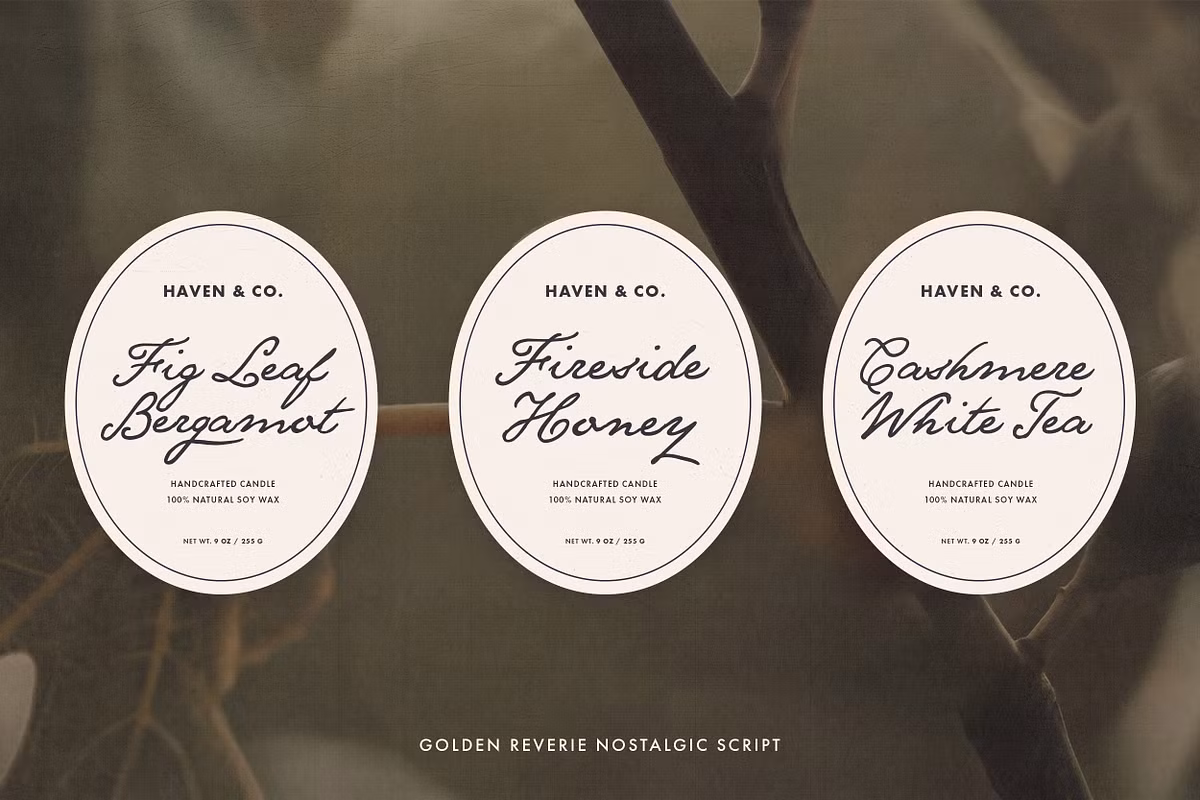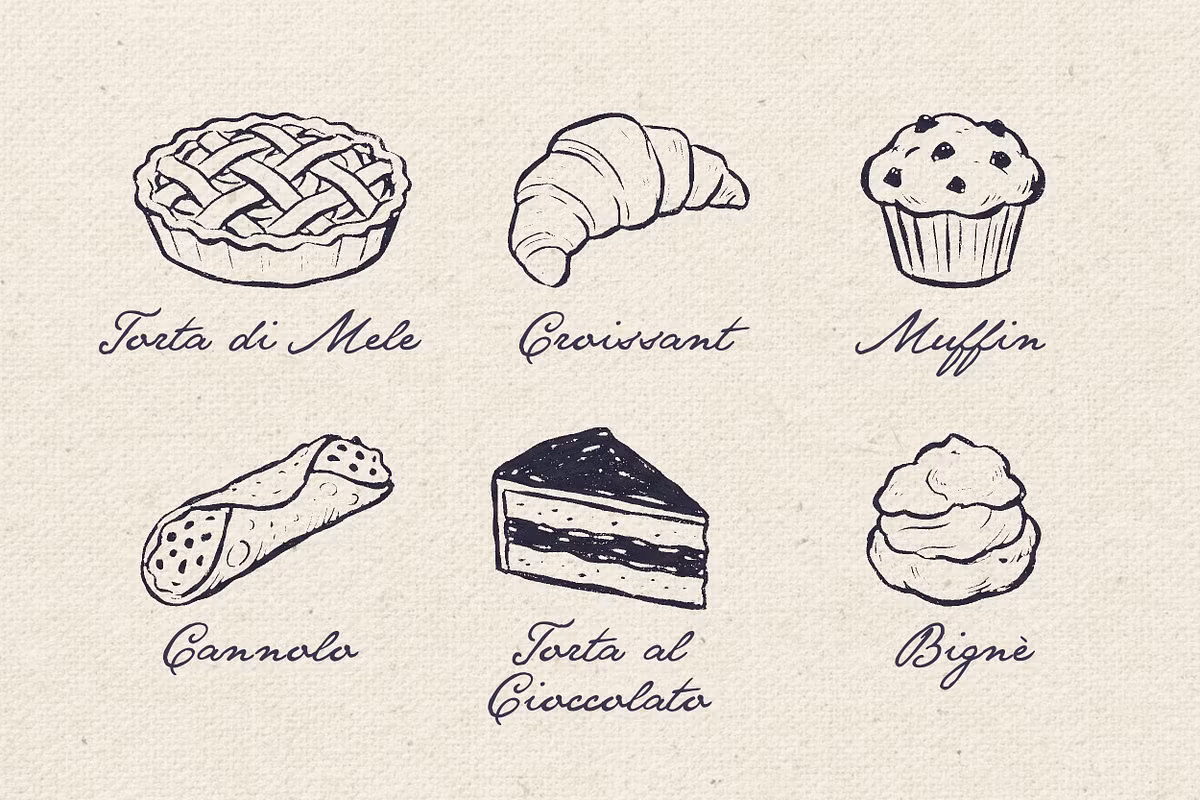
Golden Reverie: Handcrafted Nostalgic Script Font for Elegant Design
Golden Reverie is a made script font that takes ideas from the hand written letters and the old magazine design. Golden Reverie has strokes and clear shapes. Golden Reverie feels like a memory of the past. Golden Reverie works well for design projects. In this article I will look at the design style the character set, the uses, the pairing ideas and the licensing of Golden Reverie. I will show why Golden Reverie is an addition, to any designer toolkit.
The designers made Golden Reverie to have a look that works well for different projects. Golden Reverie is a choice, for anyone who wants a class in their text. Golden Reverie feels like handwriting. Golden Reverie feels warm and inviting. Golden Reverie balances expression, with reading. Golden Reverie has each letter shaped with care. Golden Reverie keeps the look refined. Still feels personal.
The script font feels soft and fluid. The script font has curves and playful flourishes that bring a feeling of nostalgia. Golden Reverie design fits projects that want to tell stories or make an effect. The script font works for a wedding invitation or a high end brand design. The script font changes easily, to contexts. The script font shows the charm of letters.
Fluid Letterforms
I notice that the letterforms, in Golden Reverie move with fluidity. The letterforms in Golden Reverie make the change from one character to the next feel smooth. The fluidity in the letterforms in Golden Reverie is key for keeping a look in the design layouts. The fluidity in the letterforms in Golden Reverie helps the design layouts stay balanced. I see that the font in Golden Reverie is versatile. The font in Golden Reverie lets designers make content that holds attention. The font, in Golden Reverie makes sure the content stays readable.
Use Cases
Golden Reverie is very flexible. Golden Reverie can fit design contexts. I have used Golden Reverie in a lot of projects. Golden Reverie works for branding for headings for posters for websites. Below are the ways to use Golden Reverie:
- Wedding Invitations: Wedding invitations use Golden Reverie because Golden Reverie feels elegant and nostalgic. Wedding invitations made with Golden Reverie look nice. Set the tone for the day. I enjoy how Golden Reverie works for wedding invitations.
- Layouts: I have used Golden Reverie on magazines and blogs. Golden Reverie adds a bit of class to designs. Golden Reverie makes the readers experience better. The readers experience is smoother.
- Branding: From my experience branding and visual identities need elegance and feeling. Brands can use Golden Reverie in the logos and the branding materials.
- Packaging and Product Labels: The font has a look. The font works well for product packaging. The font makes items stand out on shelves. The font appeals to consumers.
- Quotes and Social Media Graphics: I use Golden Reverie to make quotes and graphics that look good, for the media. I notice that quotes and graphics connect with the audience.
Typography works best when you pair fonts. Pairing fonts can improve your design. Bring the harmony. I have found that Golden Reverie pairs, with typefaces. Golden Reverie lets you make compositions. Here are some pairing suggestions:
- I like to pair Golden Reverie with clean Sans Serif Fonts, like Montserrat or Open Sans. The Sans Serif Fonts give the design a feel. The Sans Serif Fonts balance the elegance of Golden Reverie with a look.
- Serif Fonts: Combining Golden Reverie with a classic serif font such as Playfair Display or Georgia can create a timeless look, perfect for luxury branding.
- Geometric Fonts: I like to pair Golden Reverie with fonts such, as Futura or Avenir for a contrast. Geometric Fonts bring a feel. The combination adds a twist, to designs.
Golden Reverie is a script font that feels like a memory of the past and a bit of class. Golden Reverie offers letters, nice details and a large set of characters. Golden Reverie works well for designers who want to make neat work. Designers can use Golden Reverie for weddings, branding, packaging or social media graphics. Golden Reverie can make any project look better. I have used Golden Reverie in a wedding invitation. I liked the way Golden Reverie feels. Use Golden Reverie for your project.